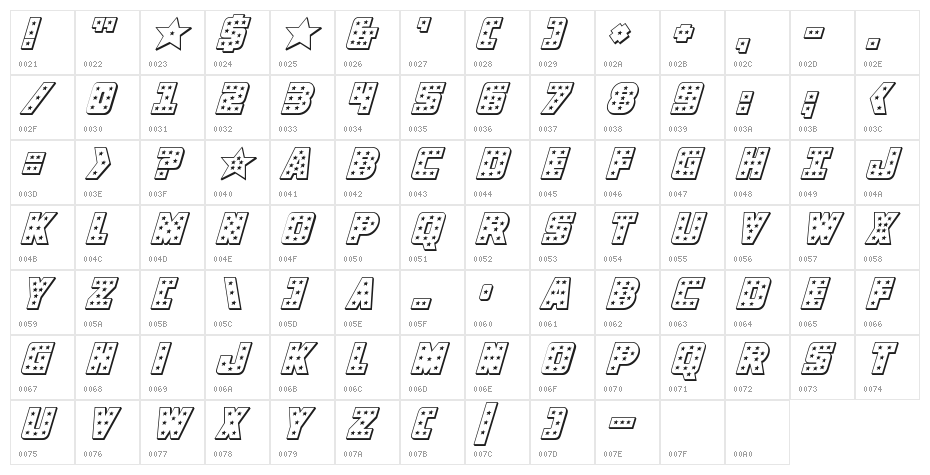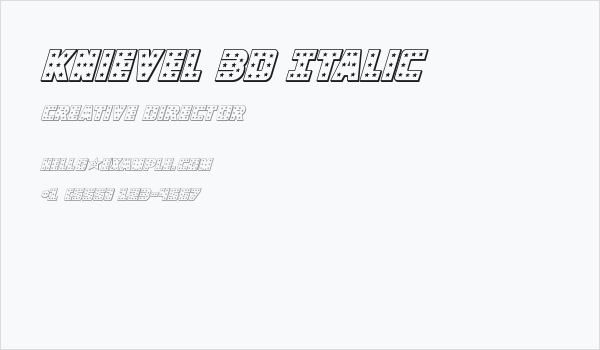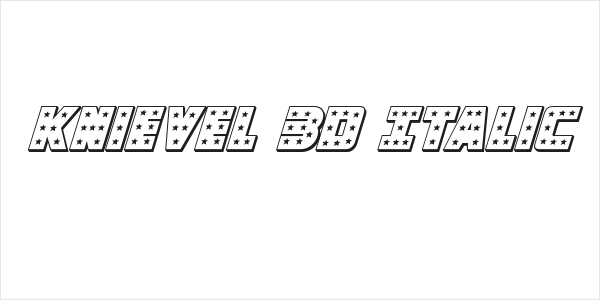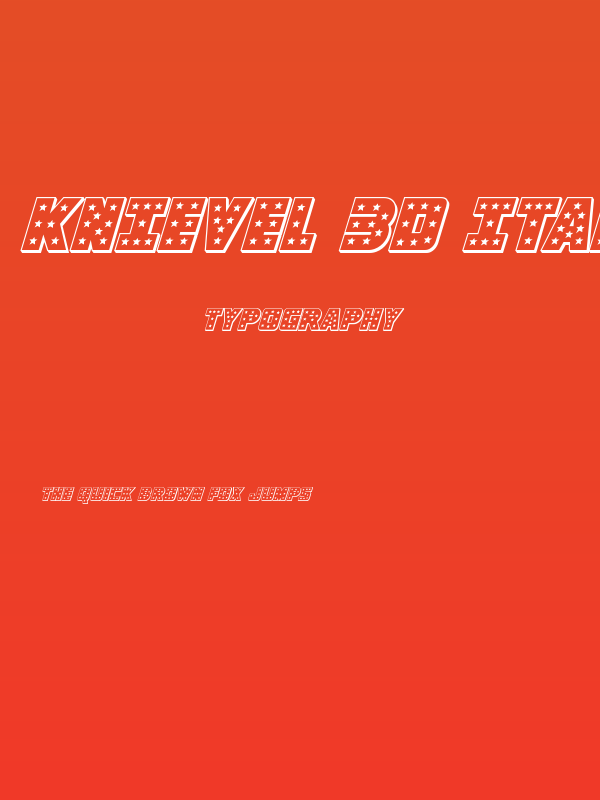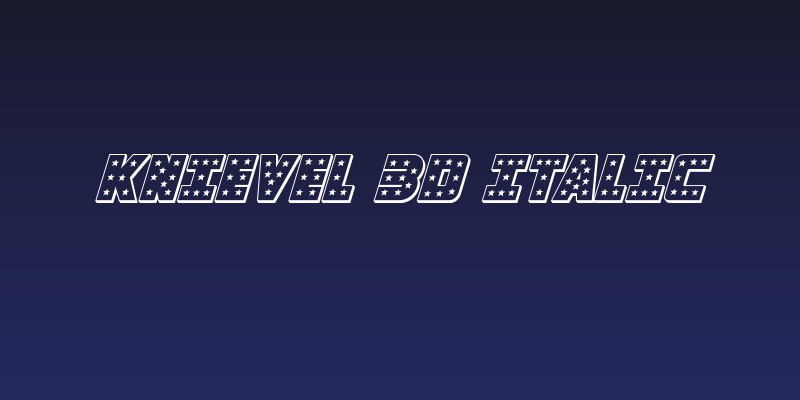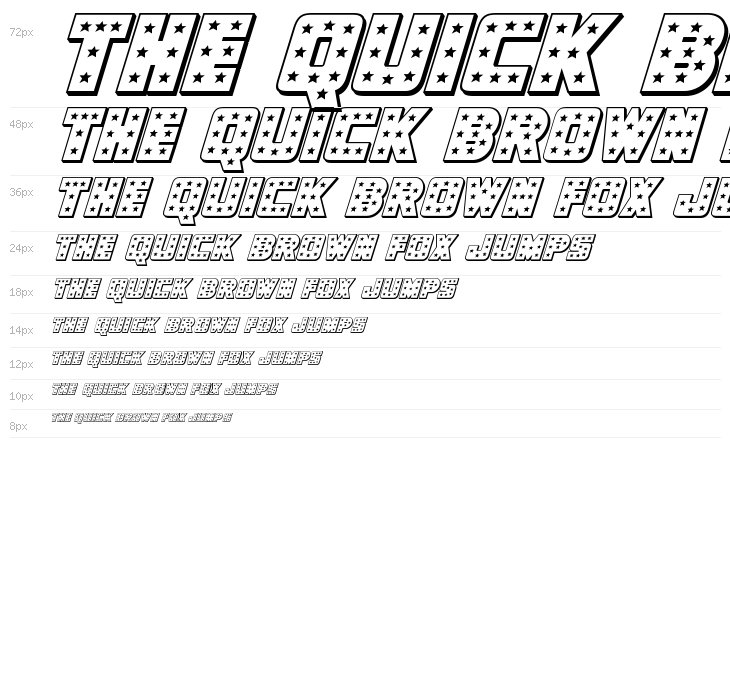
Knievel 3D Italic Font
Knievel 3D Italic Description
This font features a bold, three-dimensional design with a playful and decorative style. Each character is filled with star patterns, giving it a unique and eye-catching appearance. The letters are italicized, adding a dynamic and energetic feel. The 3D effect is enhanced by a shadow that creates depth, making the text appear to pop off the page. This font is perfect for projects that require a fun and engaging look, such as children's books, party invitations, or any design that aims to capture attention with its vibrant and lively style.
| Proposed Projects | Ideal for children's books, party invitations, posters, and playful branding. |